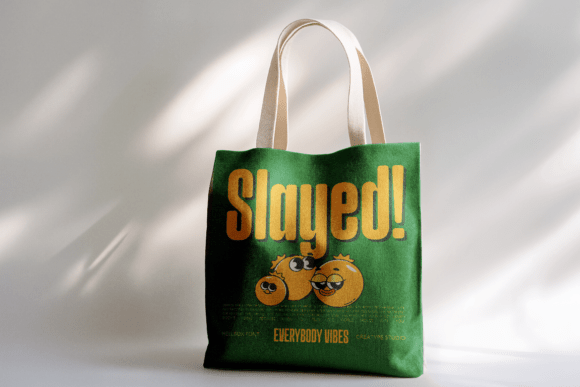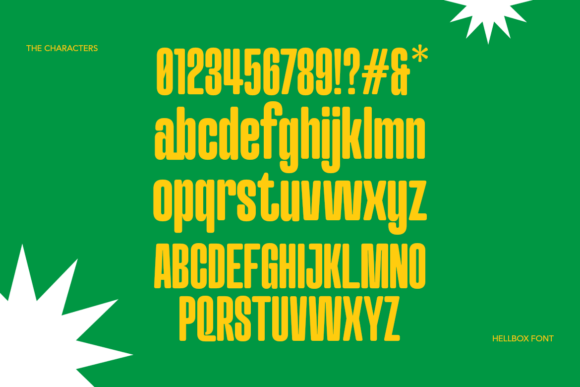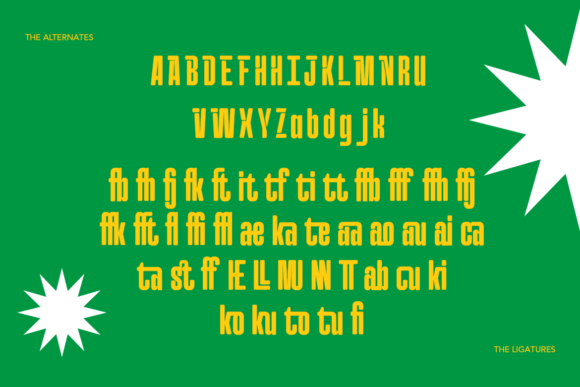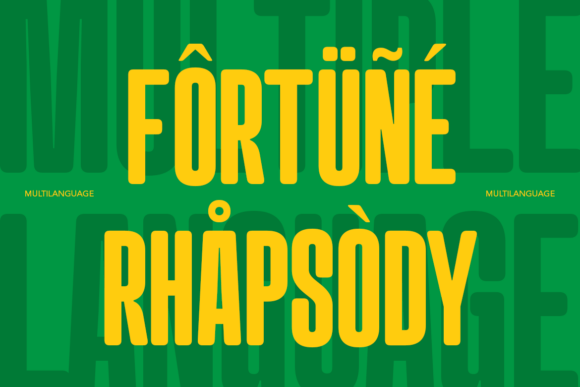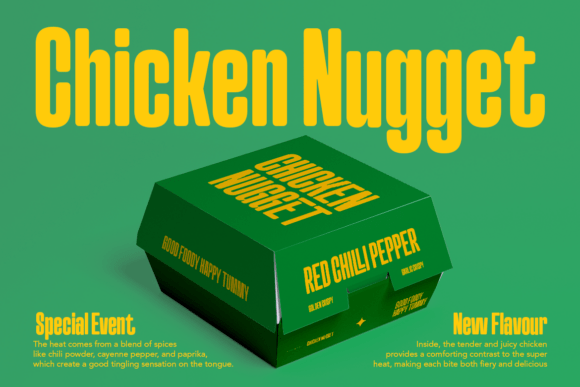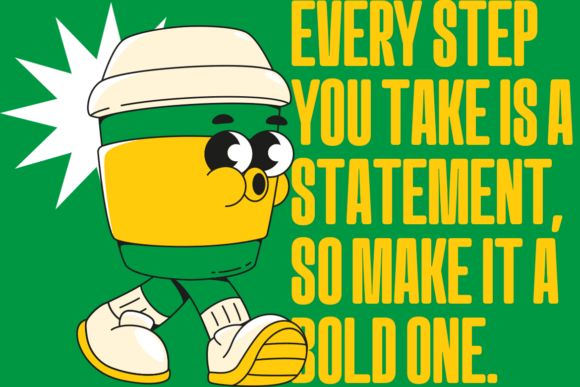
When Creativity Calls, the Right Font Answers
Imagine the rush of designing a poster for a sold-out concert, or creating a campaign for a new product launch. You need a font that can deliver a knockout punch, something that grabs attention without sacrificing readability. That’s where the Hellbox Font comes in – a punchy, ultra-condensed display sans built for big moments in tight spaces.
With its unique blend of stadium energy and retro poster charm, the Hellbox Font is a game-changer for designers. Its tall rhythm, rounded corners, and smooth monoline strokes make it perfect for headlines, titles, and short words that need to feel huge. The font’s value lies in its ability to compress the message without sacrificing personality, ensuring that your brand’s voice shines through.
Hellbox Font Key Features
- Font Family: Hellbox Font is a sans-serif typeface designed for digital use.
- Unique Characteristics: Hellbox Font features a geometric sans-serif design with a unique blend of modern and industrial elements, making it perfect for digital interfaces and futuristic designs.
- Language Support: Hellbox Font supports a wide range of languages, including Latin, Cyrillic, and Greek alphabets.
Review: Hellbox Font
I recently had the chance to work with the Hellbox font, and I have to say it’s been an interesting experience. Here are my thoughts.
- Unique and bold aesthetic: The Hellbox font has a distinct look that’s perfect for making a statement. Its bold lines and edgy feel make it ideal for headings and titles.
- Highly customizable: The font has a wide range of weights, styles, and sizes, making it easy to adjust to different design needs.
- Strong legibility: Despite its bold appearance, the font is still easy to read, even at smaller sizes.
- May not be suitable for body text: While the font is great for headings, its boldness may make it difficult to read in large blocks of body text.
- Lack of subtlety: The font’s edgy feel may not be suitable for more conservative or traditional designs.
- May require additional styling: Depending on the design, the font may require additional styling or pairing with other fonts to create a balanced look.
The Hellbox font is a great addition to any designer’s toolkit, but it’s not a one-size-fits-all solution. Its bold aesthetic and high customizability make it perfect for certain design projects, but its limitations should be carefully considered before use. With the right design, the Hellbox font can be a real showstopper.
Getting the Most Out of Hellbox Font
For the best results, use Hellbox font in conjunction with bold or italic text to create visual interest. Experiment with different font sizes and colors to achieve a striking design. You can also pair Hellbox font with other fonts to create a unique and eye-catching look.
Hellbox font is ideal for use in bold, attention-grabbing headlines, posters, and social media graphics. It’s also suitable for use in graphic novels, comic books, and other creative projects that require a distinctive, edgy font.